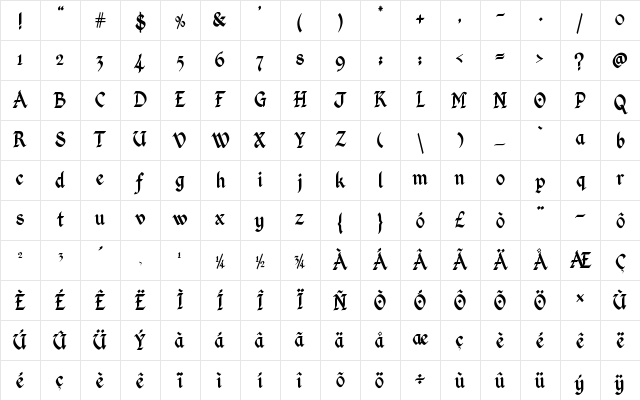
Complete Kingthings Calligraphica Regular glyph index. Displaying only characters natively supported by Kingthings Calligraphica Regular font.
Kingthings Calligraphica draws on the rich tradition of blackletter calligraphy, with dense, angular strokes that evoke medieval manuscripts and old-world craftsmanship. Its slender proportions lend an understated elegance to any composition.
Font Pairing: Pair with a clean neutral sans-serif for body copy to let Kingthings Calligraphica's character lead without overwhelming the composition.
Pro Tip: Reserve Kingthings Calligraphica for display and logo use - pair it with a clean sans-serif for body copy to prevent the composition from feeling oppressive.